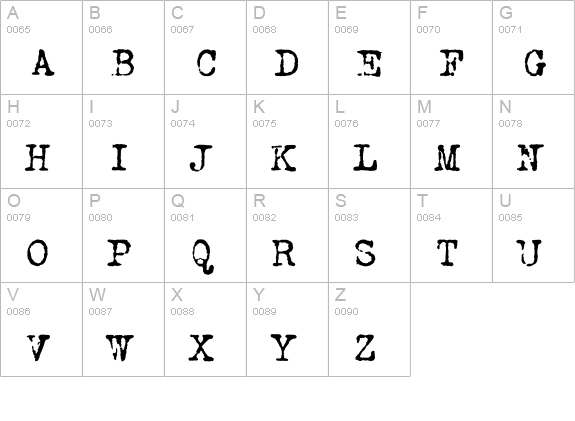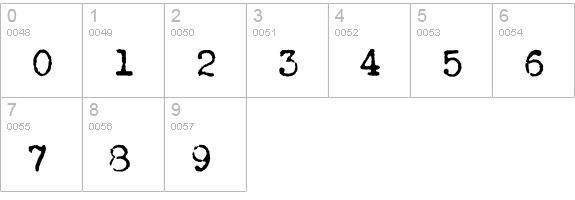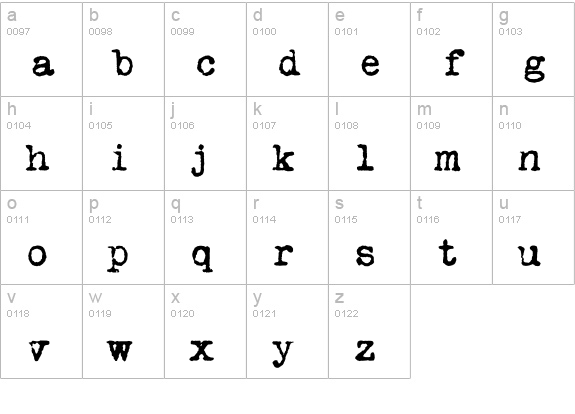
Introducing VTypewriter-RemingtonPortable, a vintage-inspired font that effortlessly captures the essence of classic typewriters. With its charming imperfections and nostalgic appeal, this font is perfect for adding a touch of old-world charm to your designs. VTypewriter-RemingtonPortable features a unique blend of authenticity and versatility, making it suitable for a wide range of projects. Whether you're designing a retro poster, creating vintage-inspired branding, or adding a touch of nostalgia to your digital content, this font will bring your ideas to life with its timeless elegance. What makes VTypewriter-RemingtonPortable even more appealing is that it is available for free download at FontsMarket.com. That's right, you can easily access this stunning font without spending a dime. Now, you can elevate your creative projects without breaking the bank. The carefully crafted characters of VTypewriter-RemingtonPortable exude a sense of craftsmanship and attention to detail. Each letter showcases the distinctive imperfections that are synonymous with typewriters, adding an authentic touch to your designs. The uneven spacing and slightly faded appearance give this font a unique character, making it stand out from the crowd. Whether you're a professional designer looking to add a vintage flair to your work or a beginner experimenting with different styles, VTypewriter-RemingtonPortable is a font that will inspire and delight. Its timeless appeal and free availability make it an essential addition to any font collection. So, why wait? Head over to FontsMarket.com and download VTypewriter-RemingtonPortable today. Unleash your creativity and embrace the charm of vintage typography with this remarkable font. Whether you're designing for print or digital media, this font will effortlessly transport your audience to a bygone era, leaving a lasting impression.